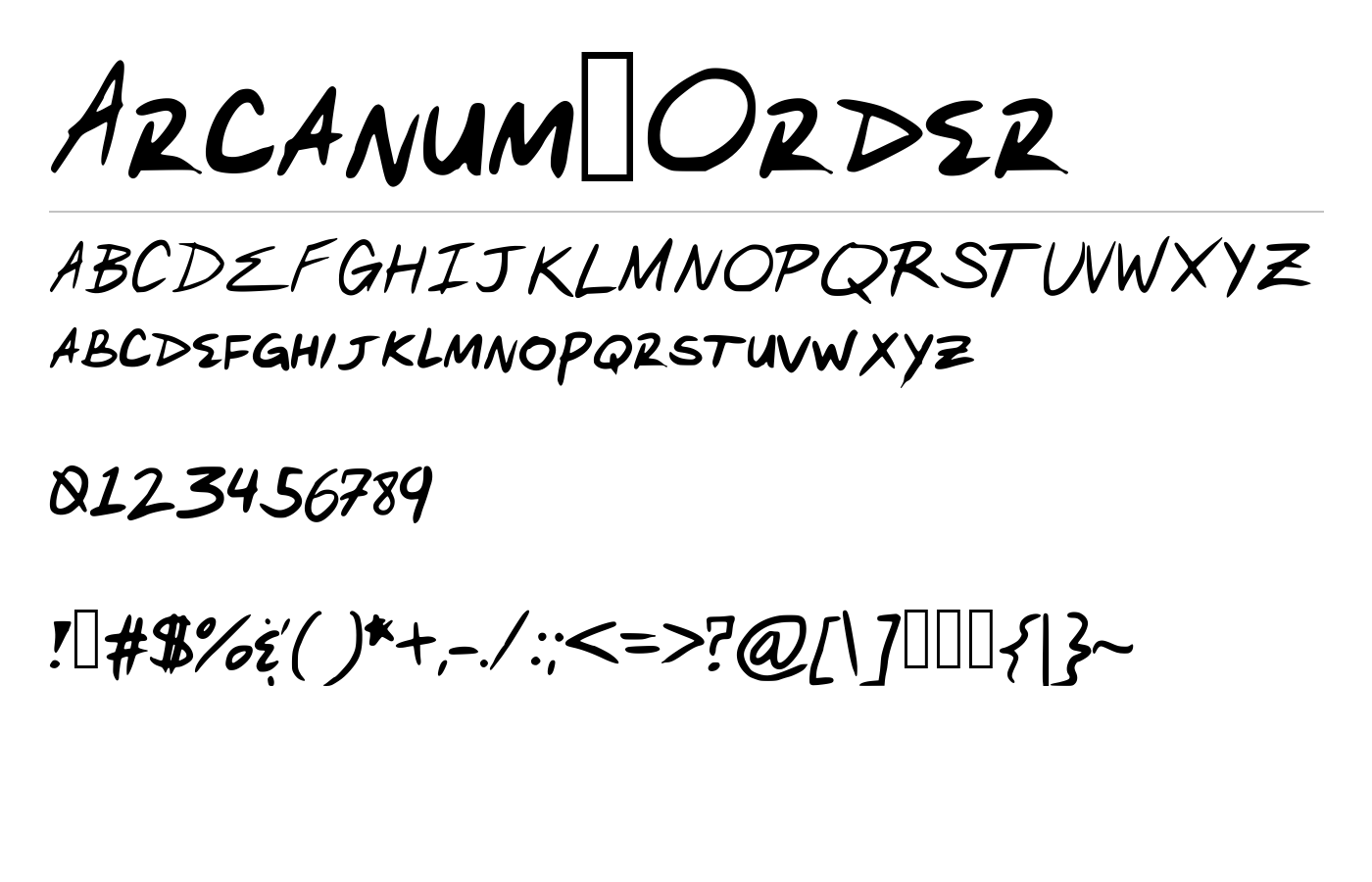
Arcanum_Order is a lively handwritten sans serif font that features dynamic, brush-like strokes with varying thickness, giving it an energetic and informal feel. It works great for creative projects, headlines, and branding that aim for a playful, personal touch while maintaining good readability. This font is ideal for casual invitations, posters, and artistic logos where a natural, hand-crafted style is desired.
Arcanum_Order Font
About Arcanum_Order Font